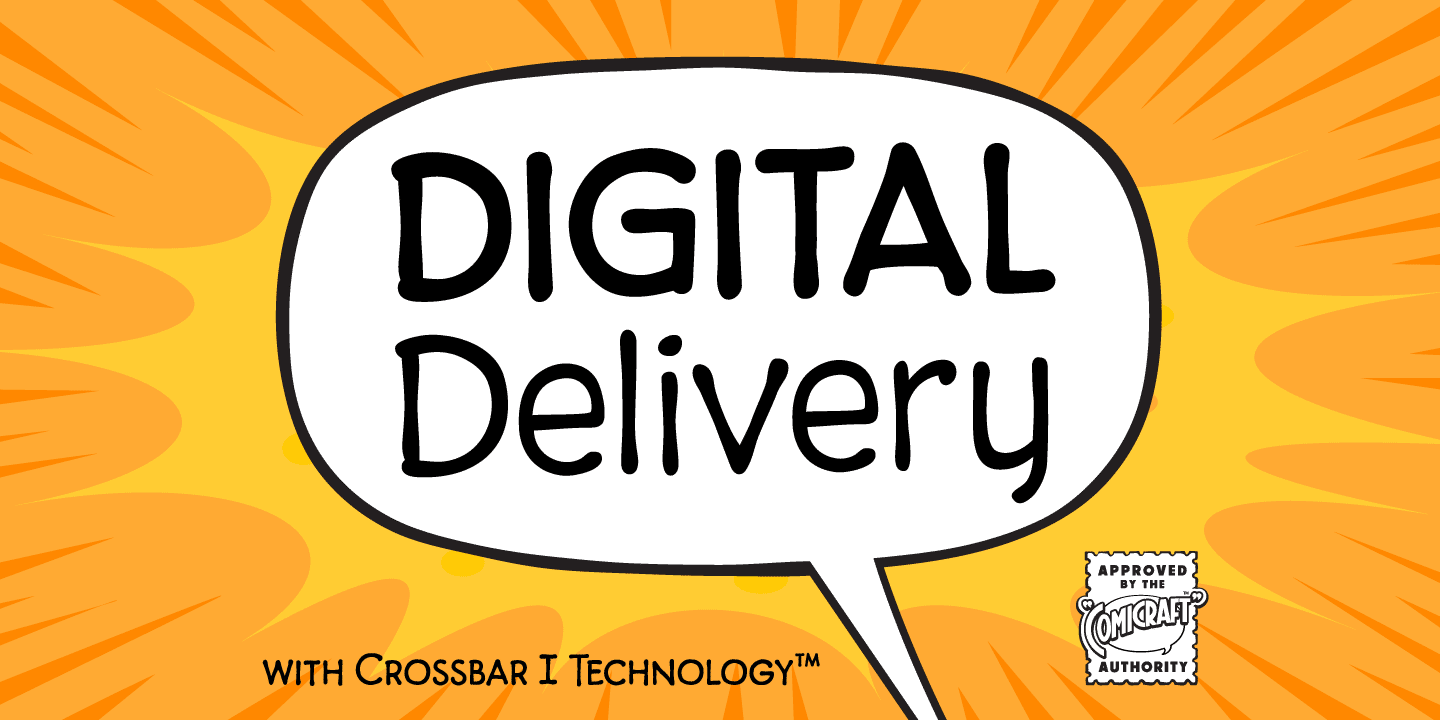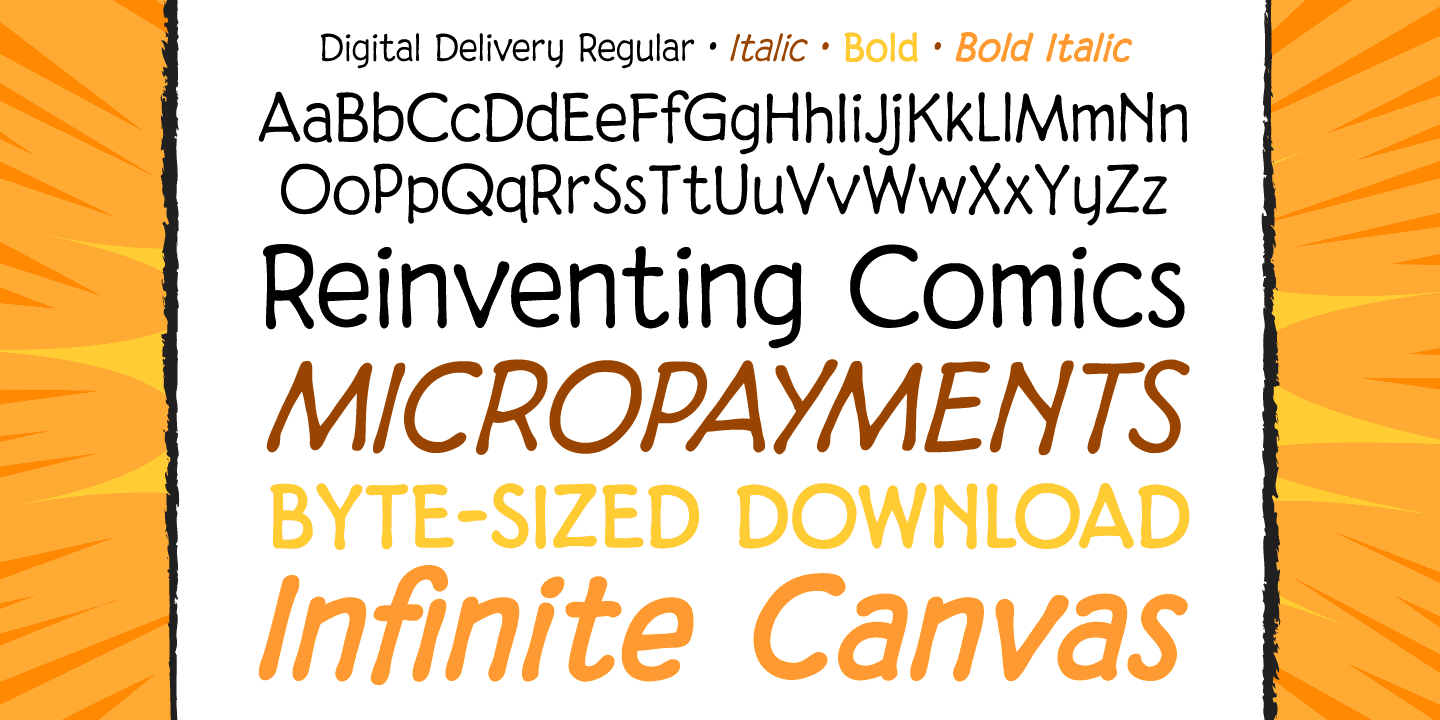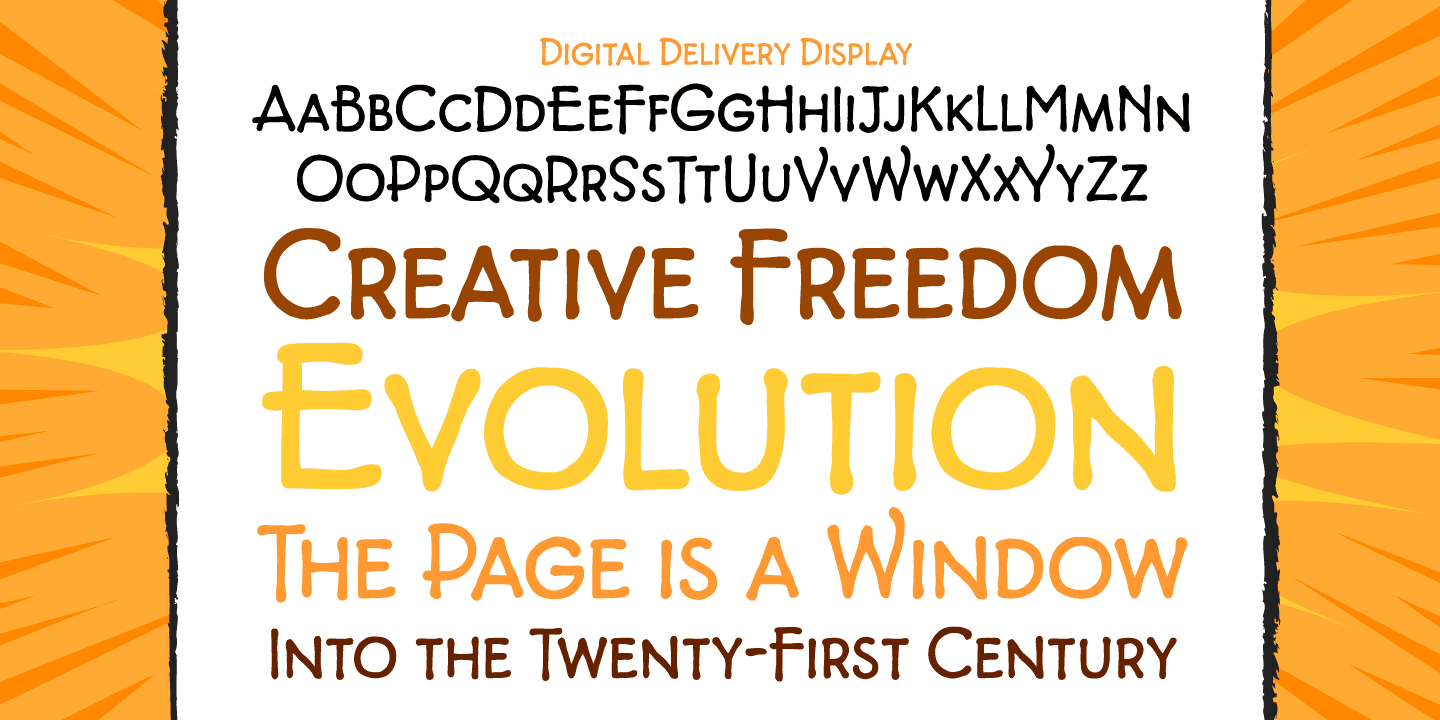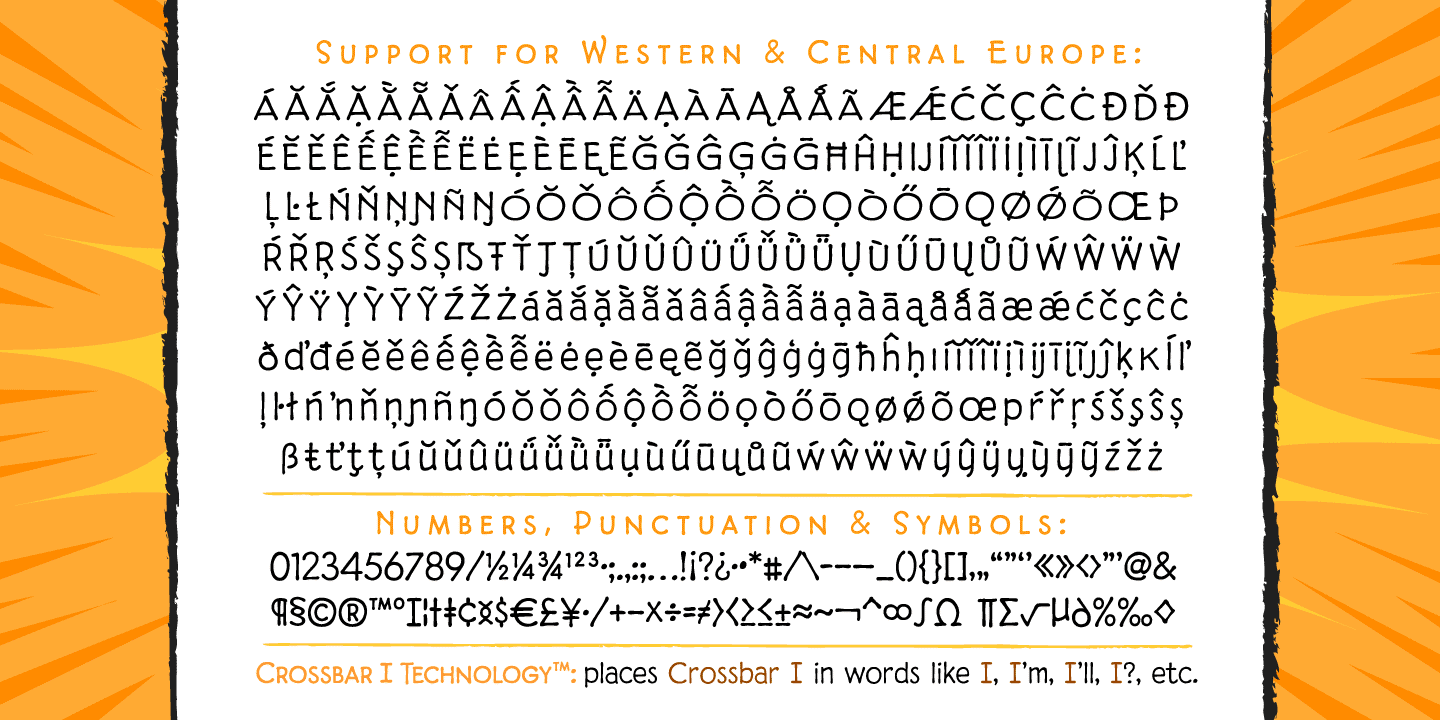
Digital Delivery
Created by John Roshell for the incomparable Scott McCloud to letter REINVENTING COMICS, this friendly & easy-to-read pen style later appeared on the letters pages of ELEPHANTMEN.